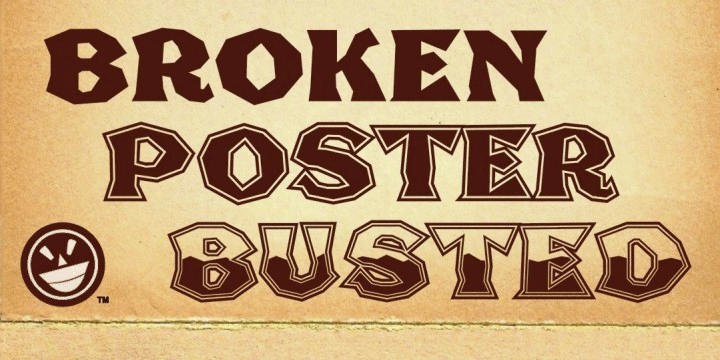
Broken Poster
Broken Poster par Fontry
The huge jags and sharp angles of legendary sign painter Frank H. Atkinson's Broken Poster have returned with a vengeance. At a hundred plus years and counting, Broken Poster isn't exactly a new kid on the block. What is new is that it now comes in three fun variations: Broken Poster, Broken Poster Tour and Broken Poster Tour Busted. Break out your vector program and get ready to have some fun.